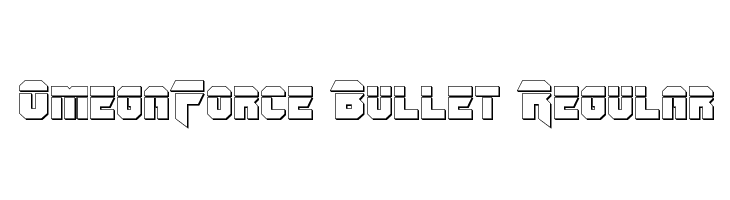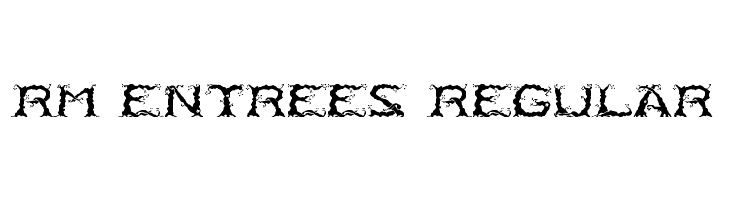
A bold, italicized font with a futuristic and dynamic style.
A dynamic, textured handwritten font with a casual, artistic style.
A hand-drawn, rustic font with a playful and informal style.
A distressed, grunge-style font with a bold, textured appearance.
An elegant italic font with smooth, flowing lines and a refined appearance.
Bold, rounded icon set for social media and tech brands.
A decorative font with intricate curves and a calligraphic style.
A geometric, three-dimensional font with bold, angular lines and a paper-like appearance.
A modern, bold, semi-condensed italic typeface with smooth curves and sharp edges.
A bold, playful font with a whimsical and slightly gothic style.